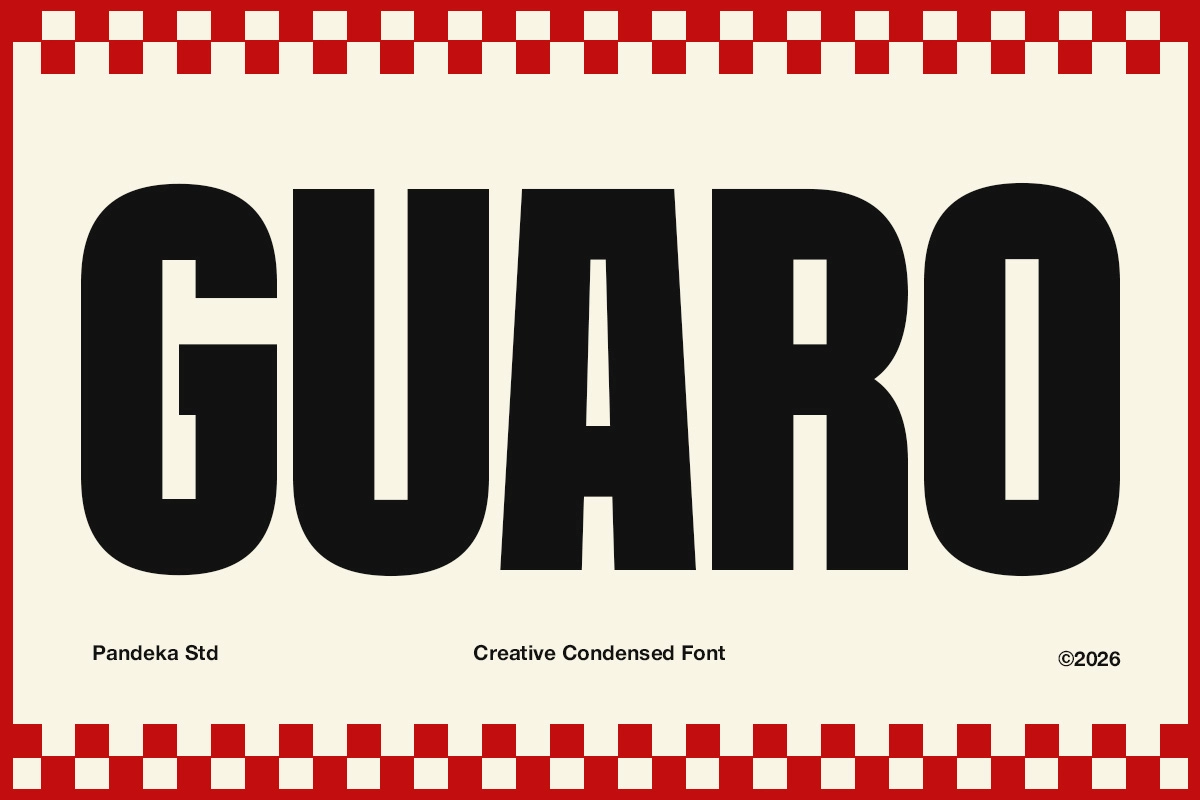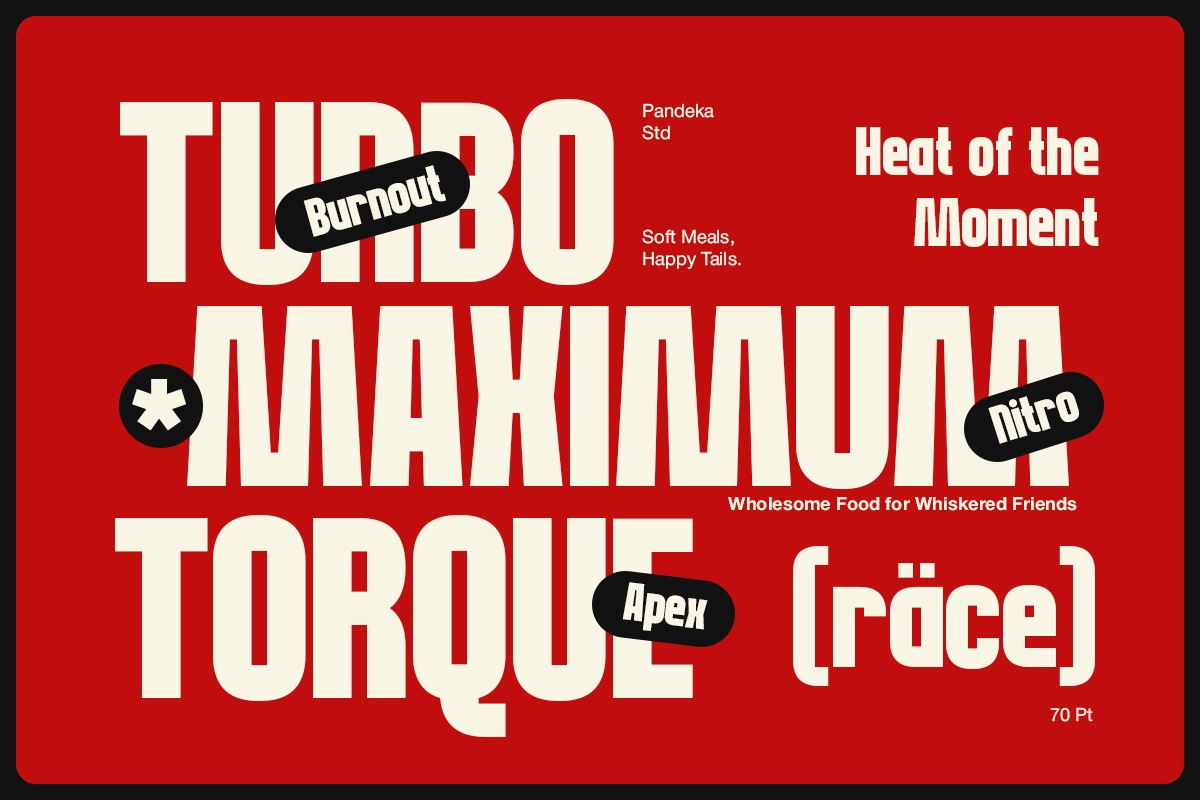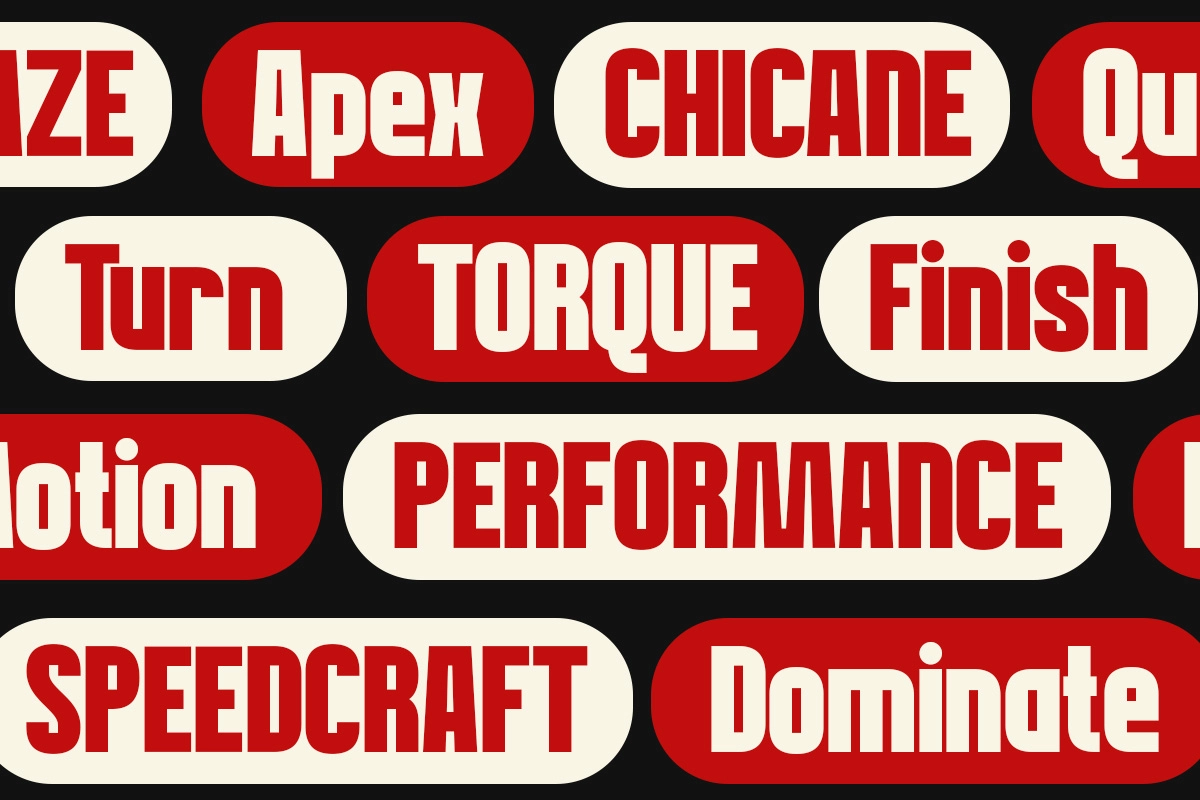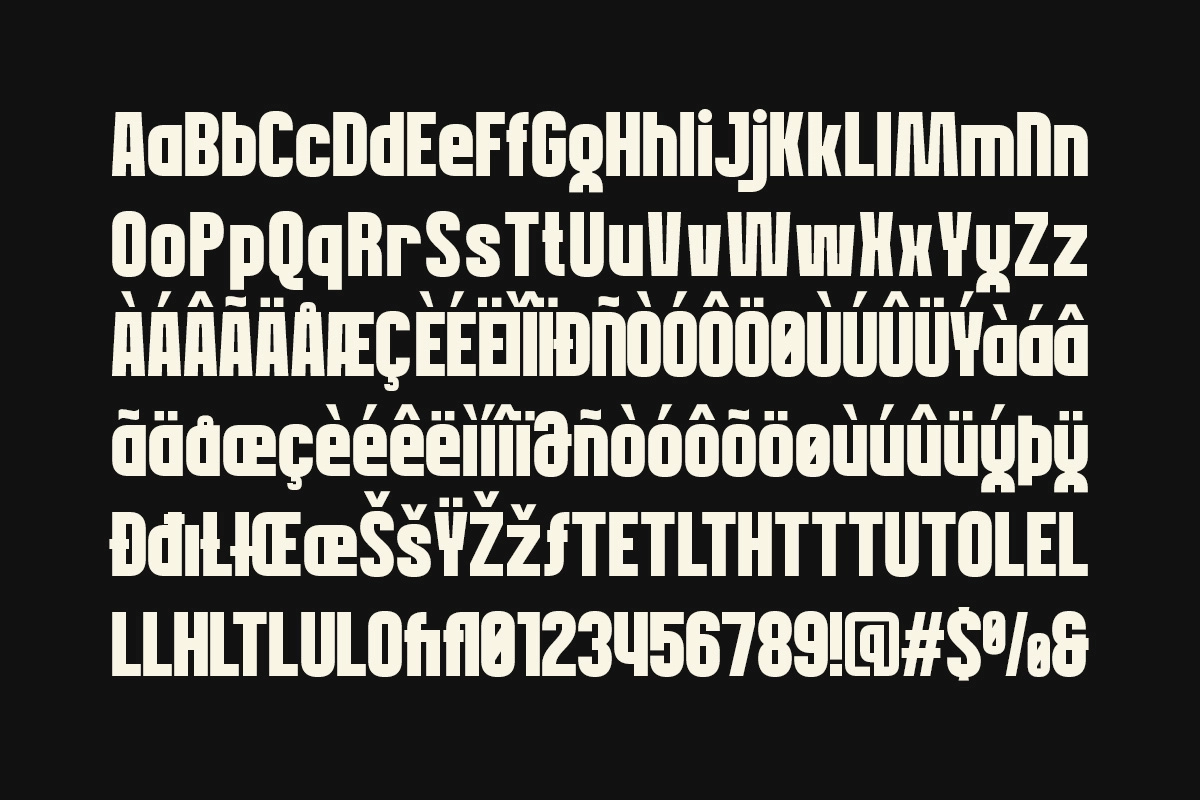
Guaro - Bold Sport Condensed Font
Guaro
Guaro is a bold sport poster font with tall condensed proportions, chunky slab-like strokes, and squared-off terminals, echoing race-track signage and stadium scoreboard type. The weight sits heavy and upright, holding its ground at both huge headline sizes and tight label copy.
Guaro works best in short, high-impact lines where speed and confidence need to read instantly. Use it for racing and automotive branding, sports event posters, team merchandise, energy drink packaging, gym and fitness graphics, and bold promotional headlines.